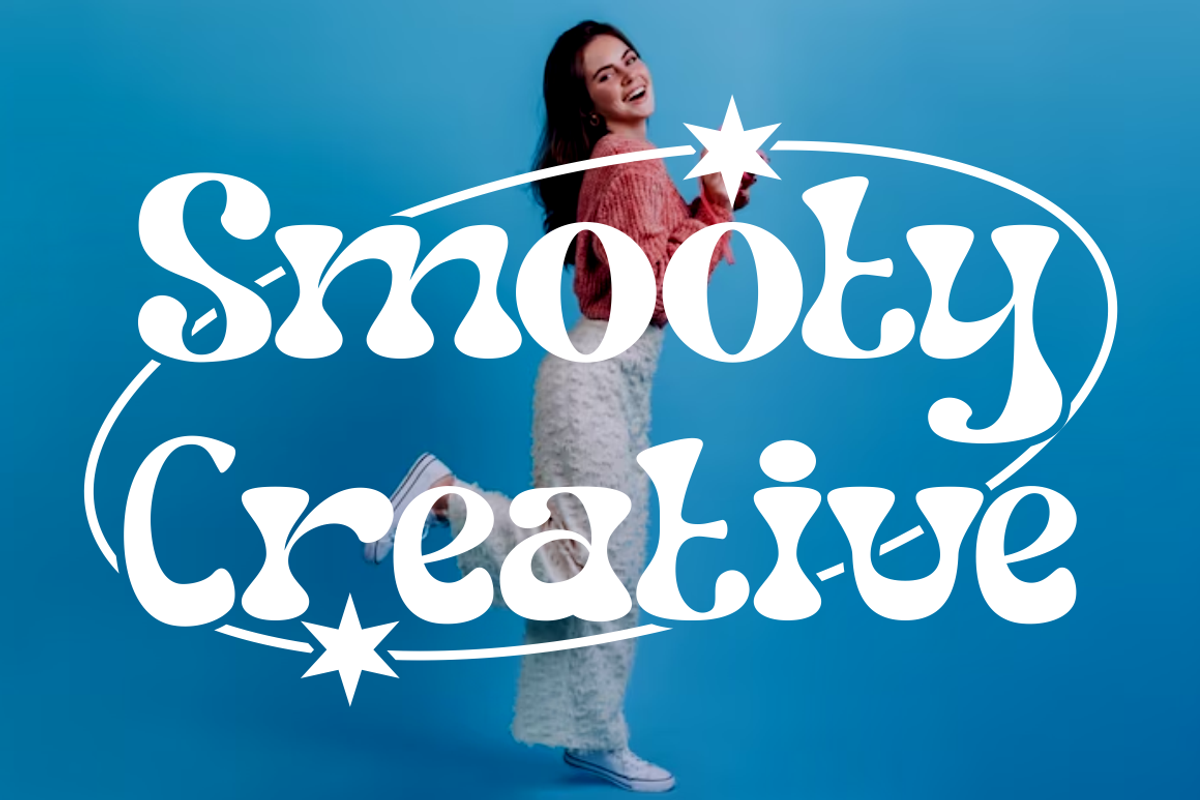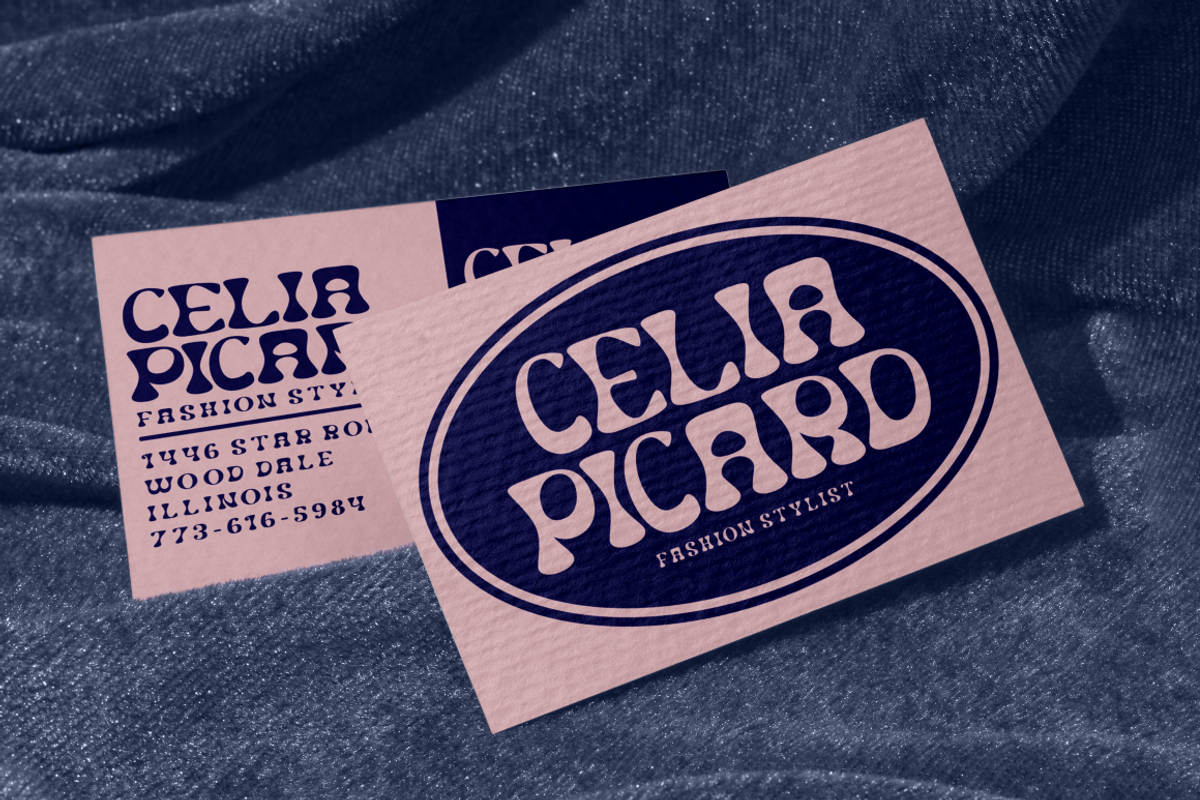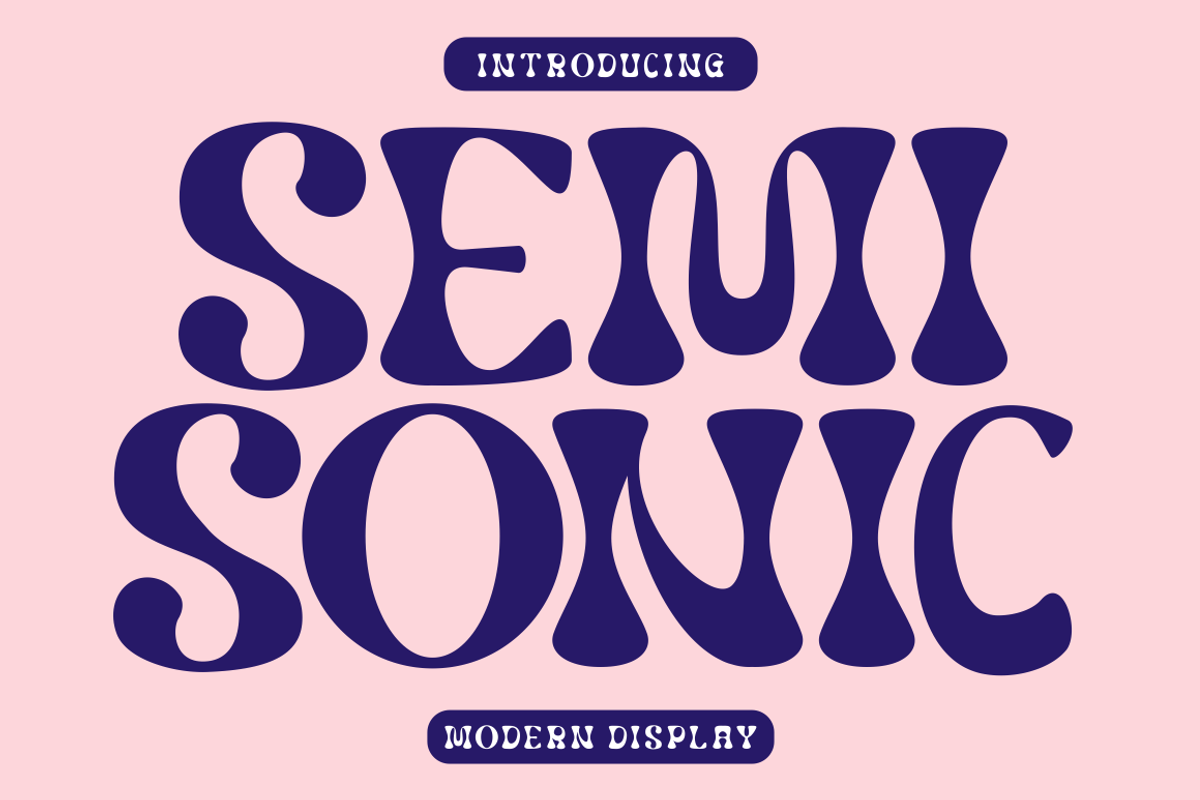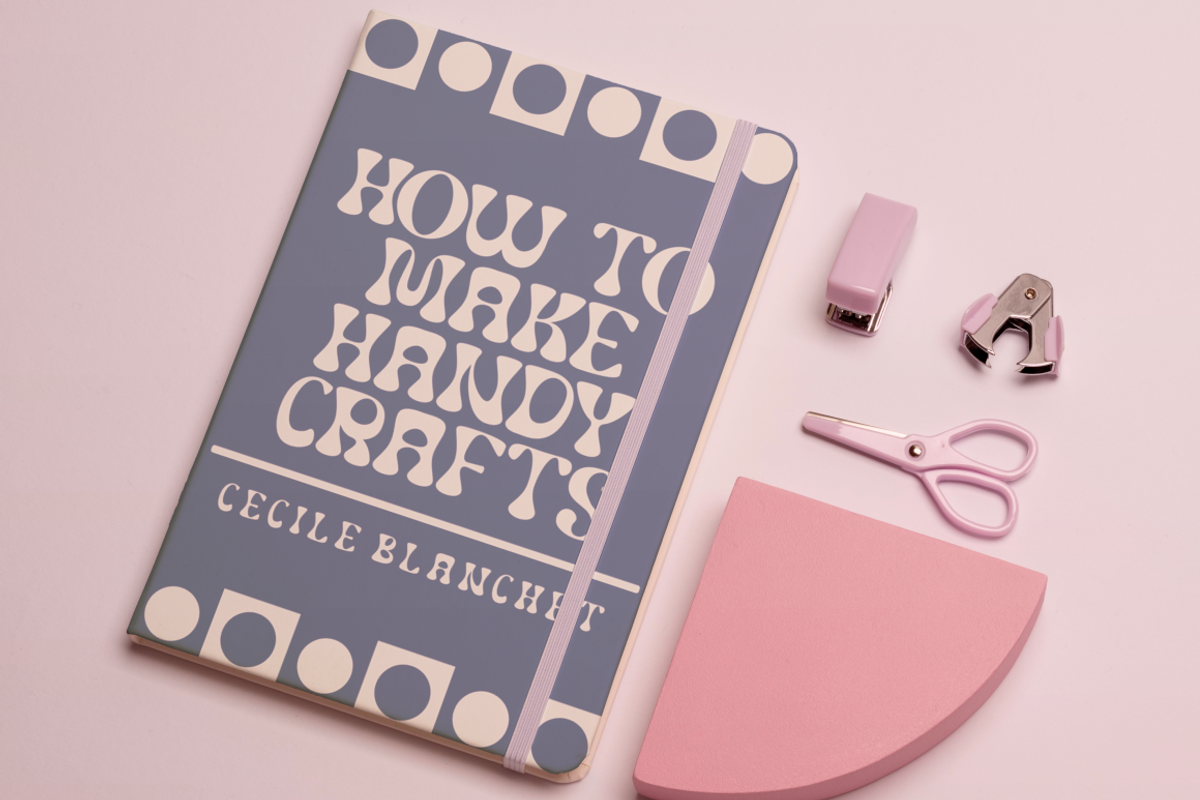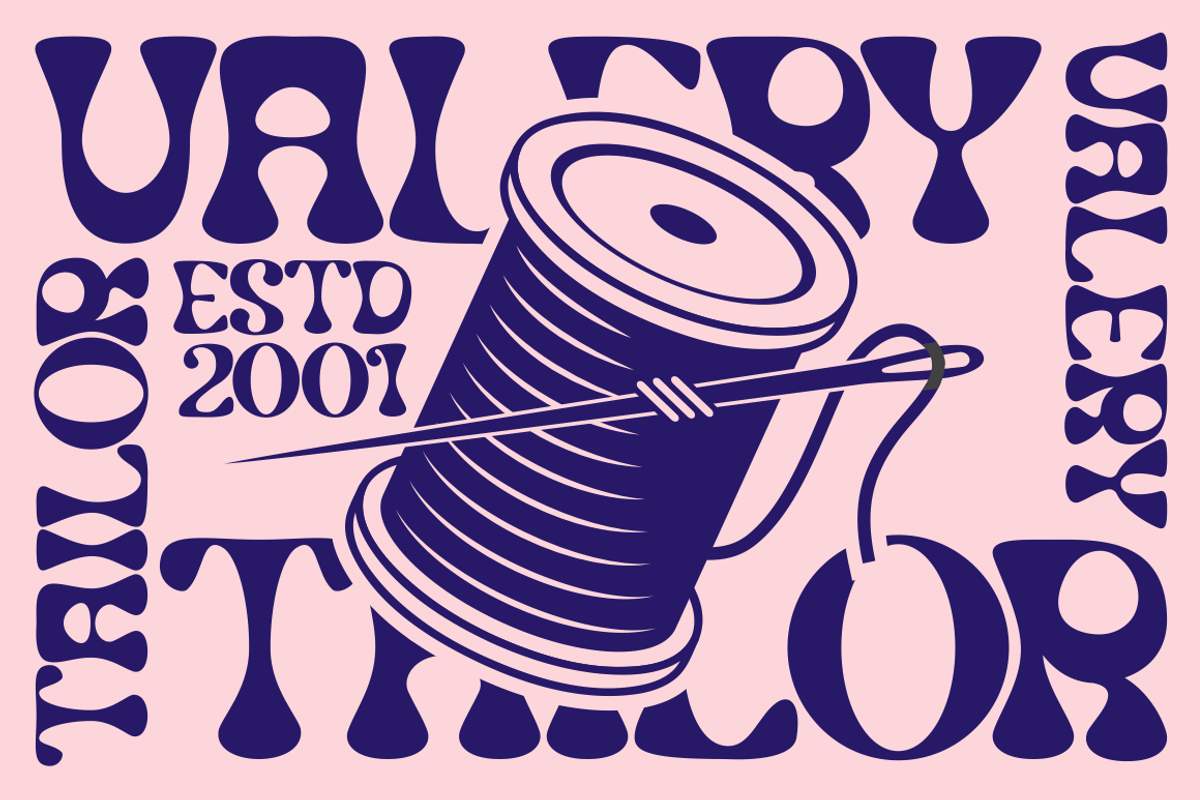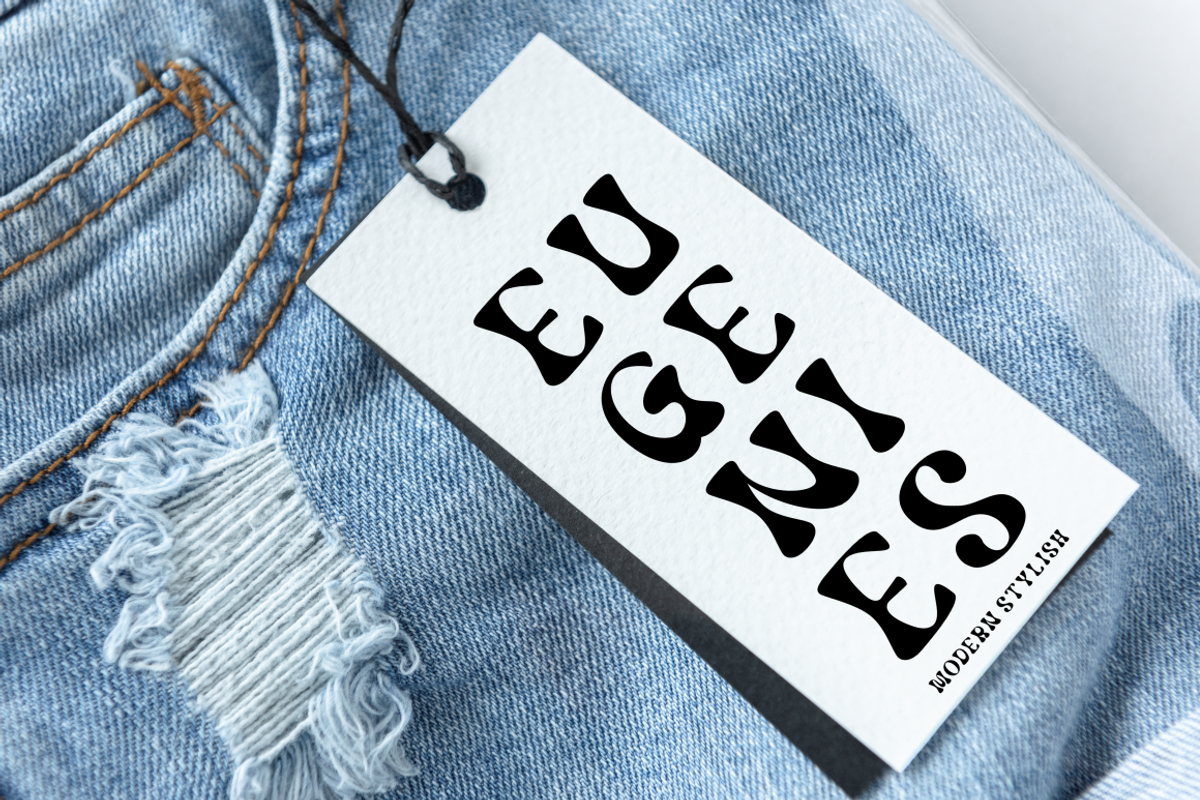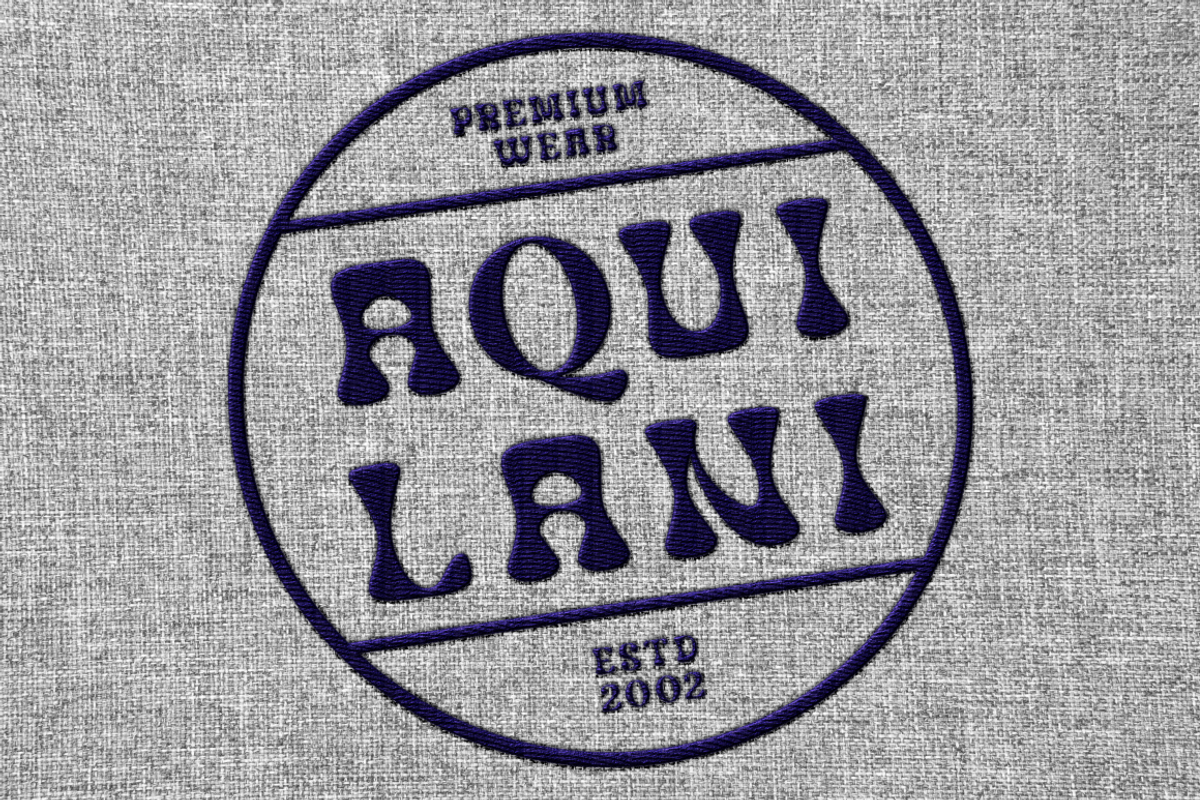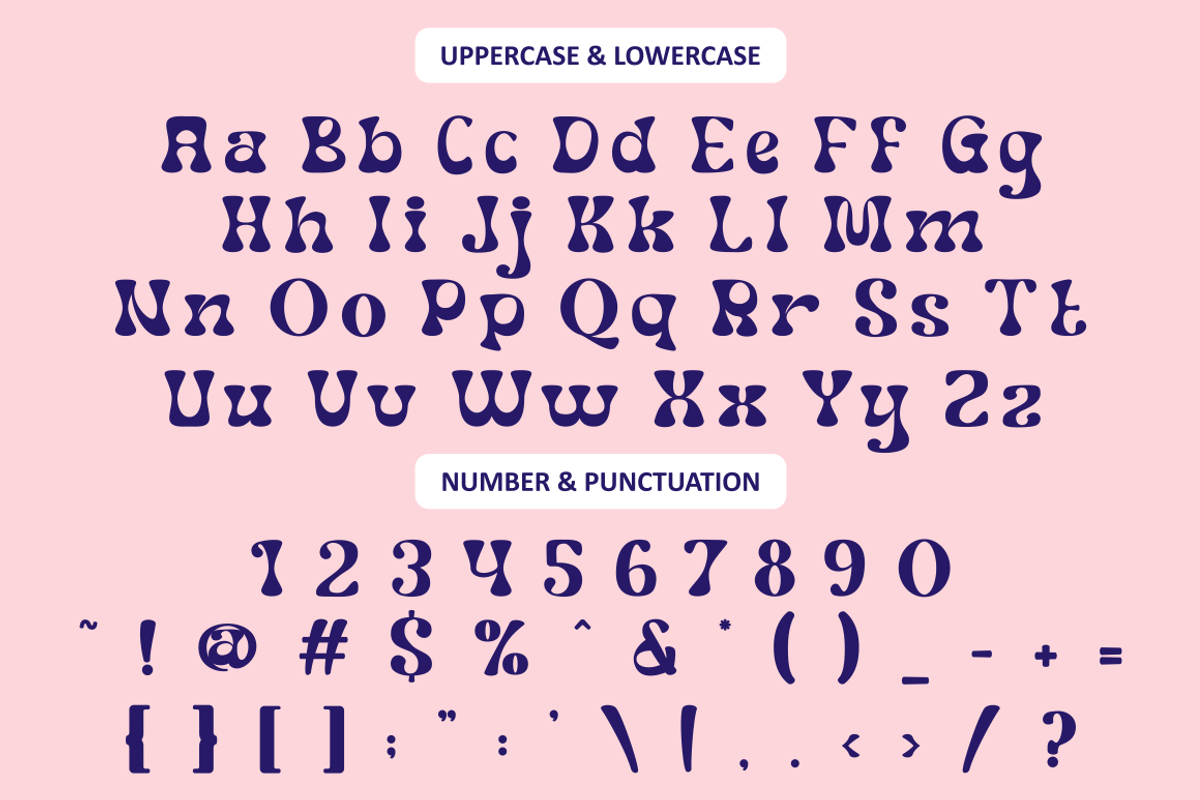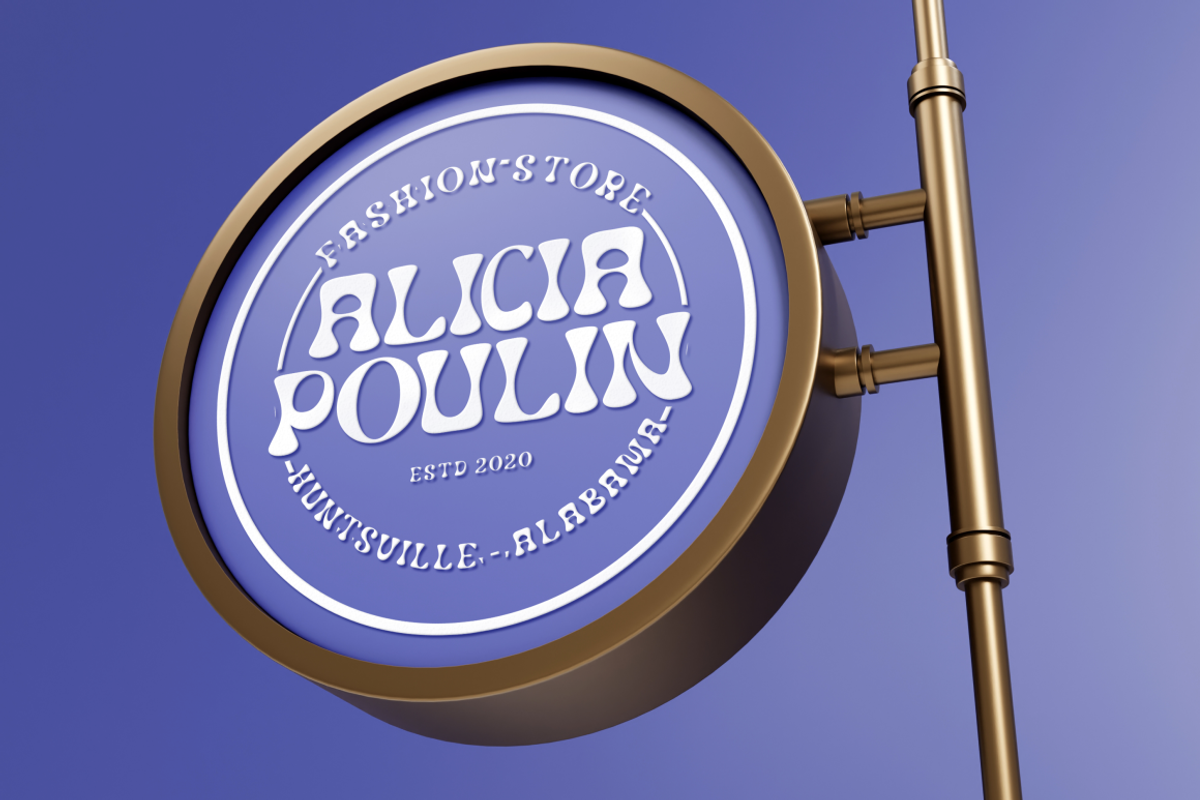
Semisonic - Modern Display Font
Semisonic is a captivating modern display font that defies convention and stands out from the ordinary. It seamlessly blends the essence of modernity with a fusion of sans serif and decorative elements, creating a font that's truly exceptional.
This unique font is the perfect choice for those seeking to make a bold statement in their designs. Whether it's a logo, branding materials, invitations, packaging, posters, headlines, business collateral, greeting cards, magazines, or any other creative project, Semisonic will add a touch of individuality and originality.
With its one-of-a-kind design, Semisonic allows your creativity to shine and your message to resonate in a distinct and memorable manner. Its unusual, eye-catching shapes make it perfect for projects that demand a modern and unique display font.
Elevate your designs and captivate your audience with Semisonic - a font that's anything but ordinary.